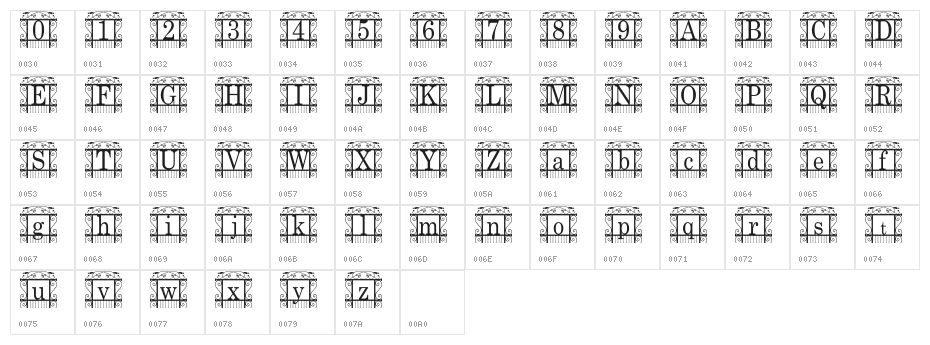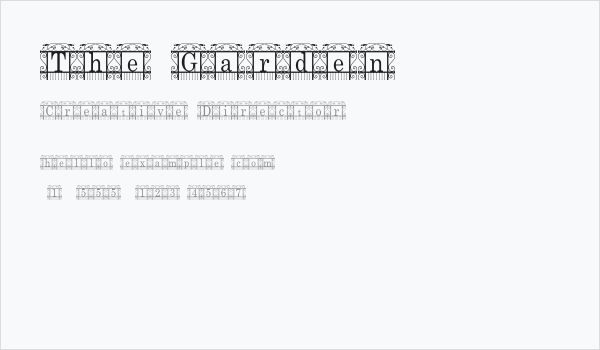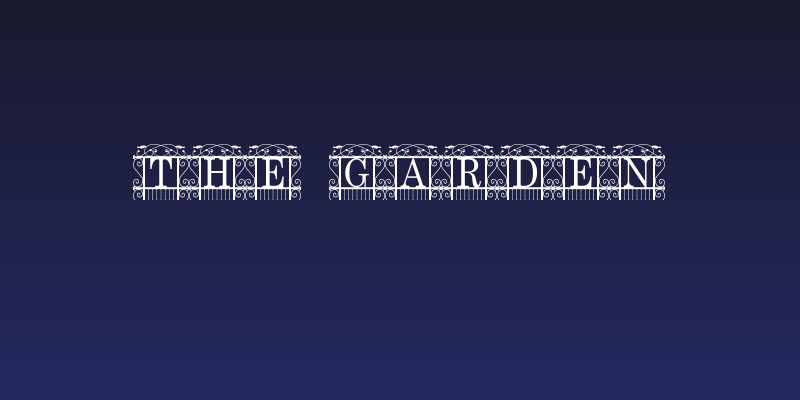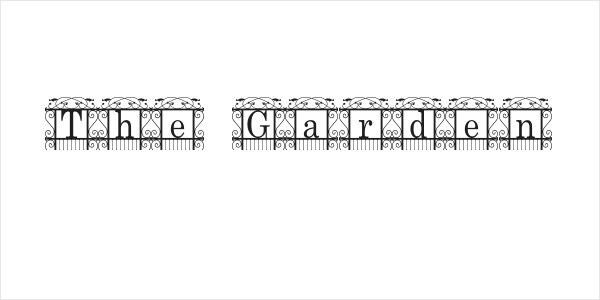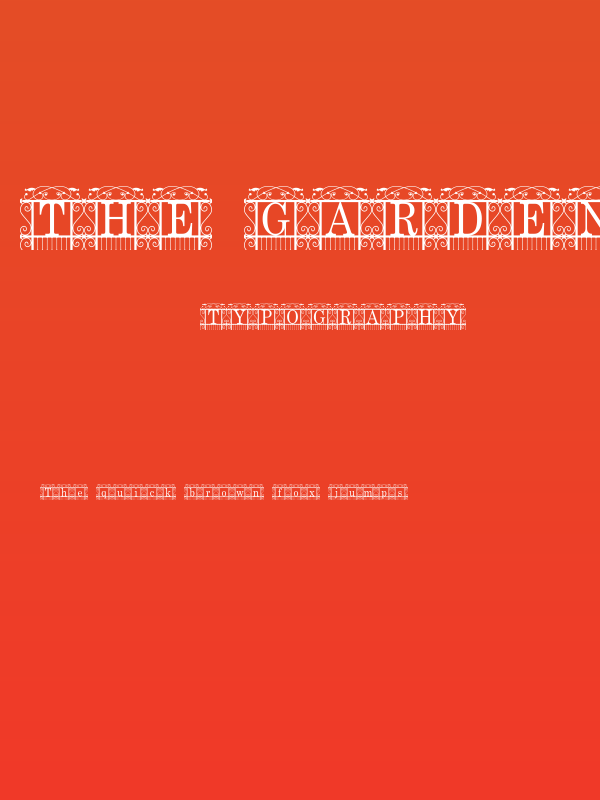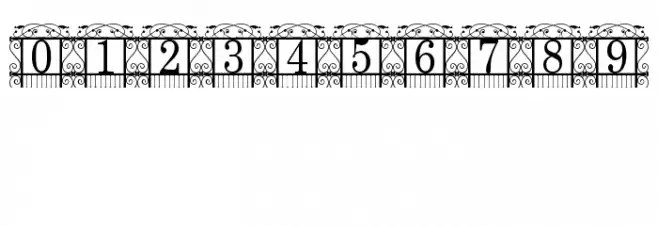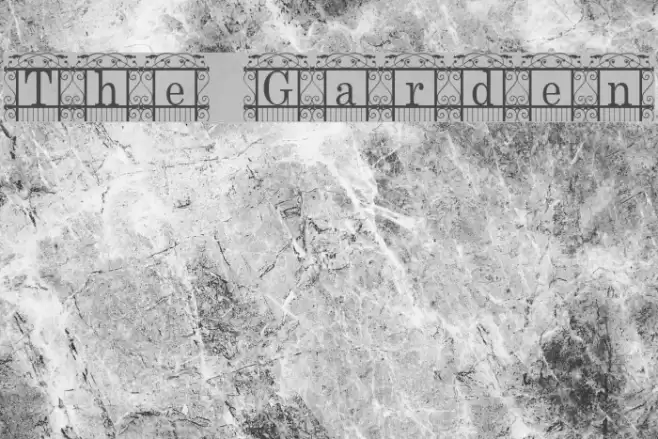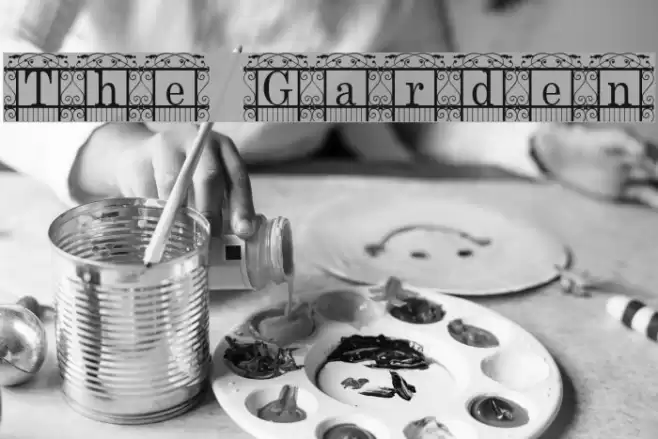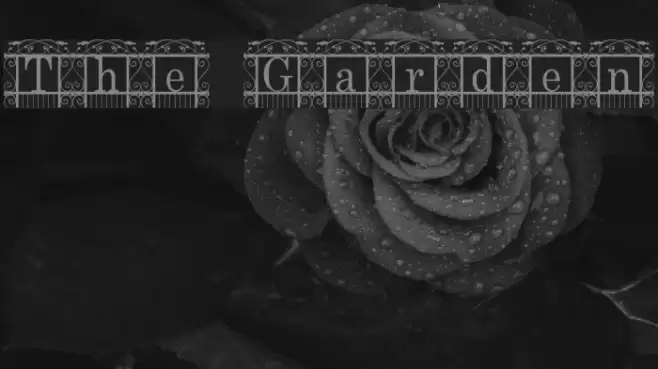
The Garden Font
The Garden Description
This decorative font features an intricate design that resembles ornate garden gates or fences. Each character is enclosed within a rectangular frame adorned with swirling, floral-like patterns at the top and bottom. The letters and numbers are bold and clear, providing a striking contrast against the detailed borders. This font exudes a sense of elegance and sophistication, making it suitable for projects that require a touch of vintage charm. The uppercase and lowercase letters maintain a consistent style, ensuring a cohesive look across different text elements.
| Proposed Projects | Ideal for wedding invitations, garden-themed events, vintage posters, and decorative signage. |